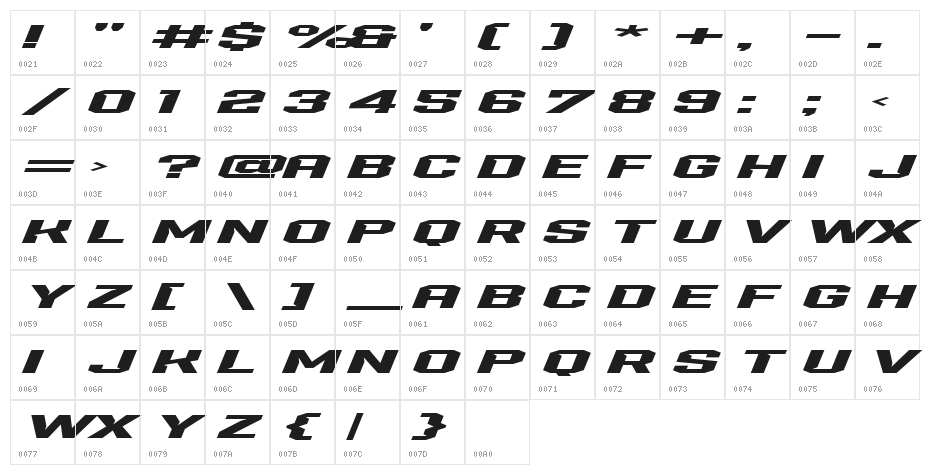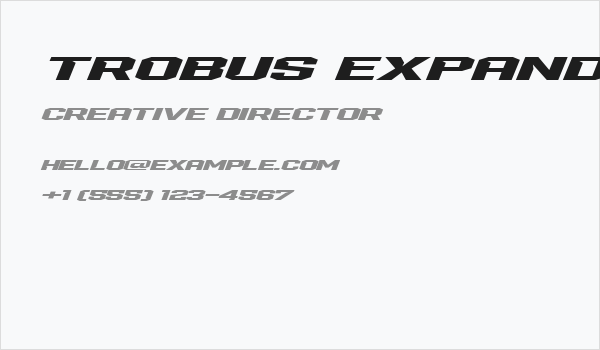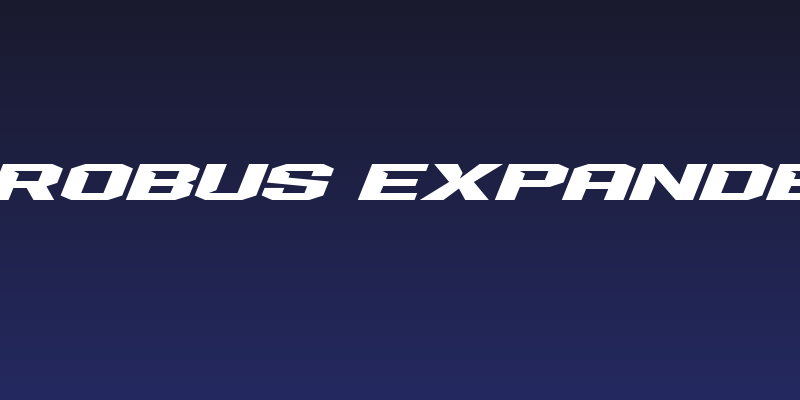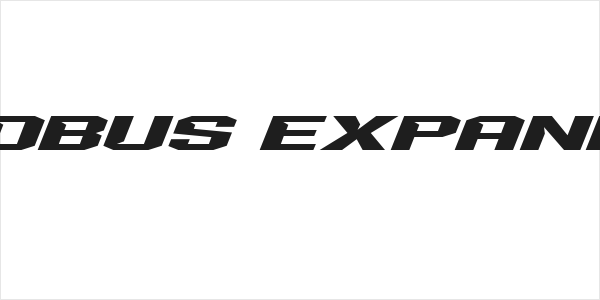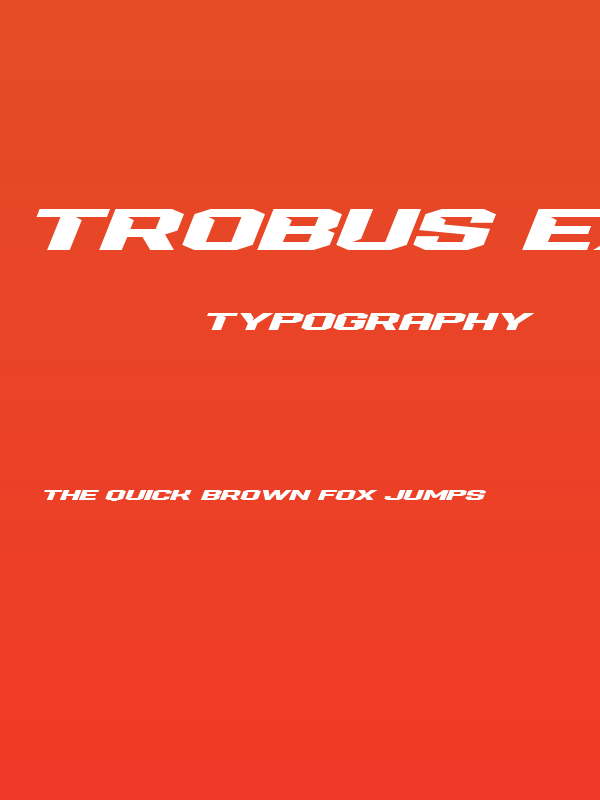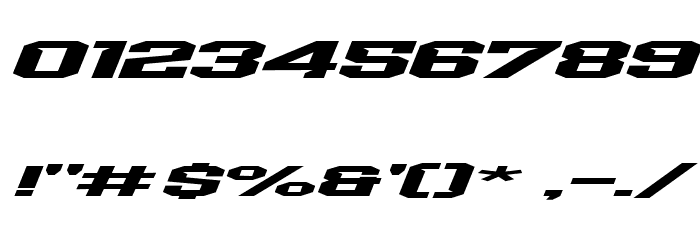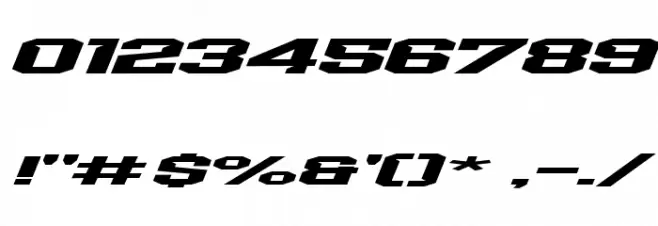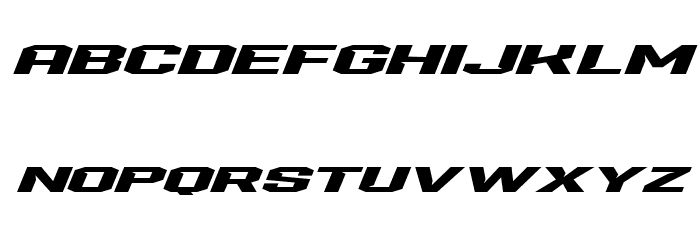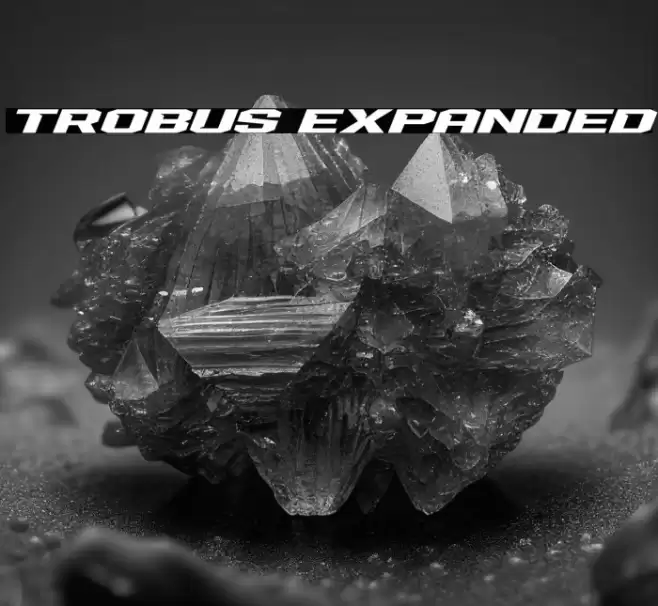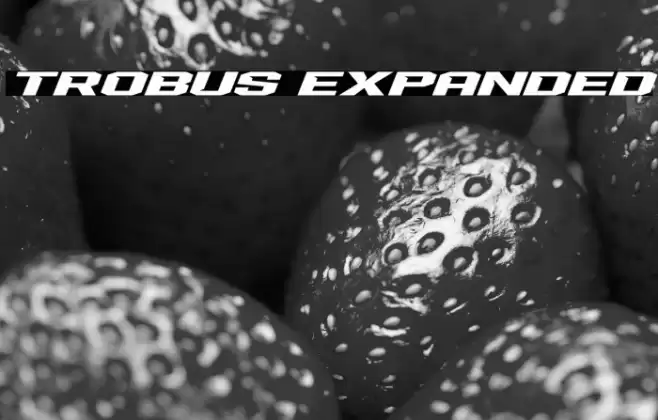
Trobus Expanded Font
Trobus Expanded Description
This font features a bold and dynamic style with a distinctly modern and futuristic appearance. The characters are designed with sharp angles and a slightly italicized slant, giving them a sense of motion and energy. The strokes are thick and consistent, providing a strong visual impact. The font's expanded width enhances its readability and makes it suitable for attention-grabbing headlines or titles. The character spacing is normal, ensuring clarity and legibility. The overall design is sleek and contemporary, making it ideal for projects that require a bold and assertive typeface.
| Italic | Yes |
| Width | Expanded |
| Use Case | Headlines, Logos |
| Proposed Projects | Ideal for sports branding, tech-related designs, futuristic themes, and impactful advertising. |